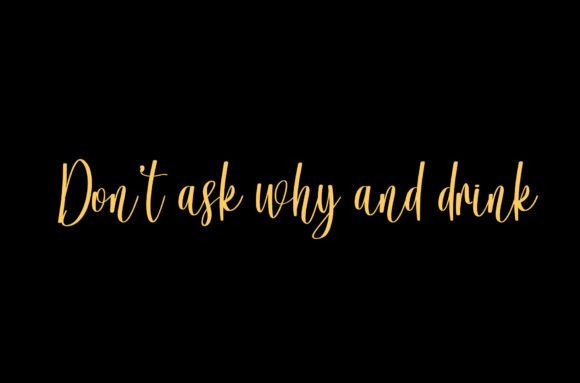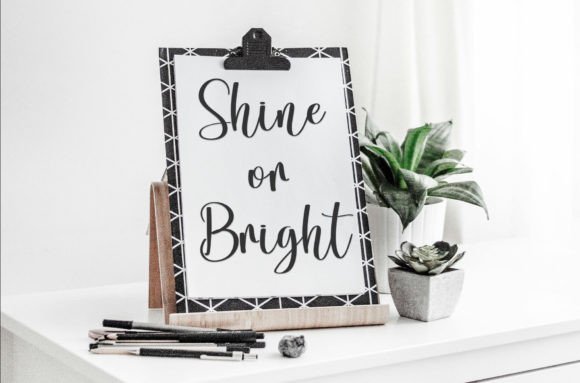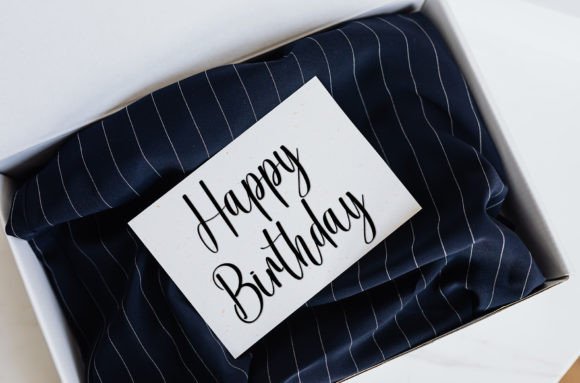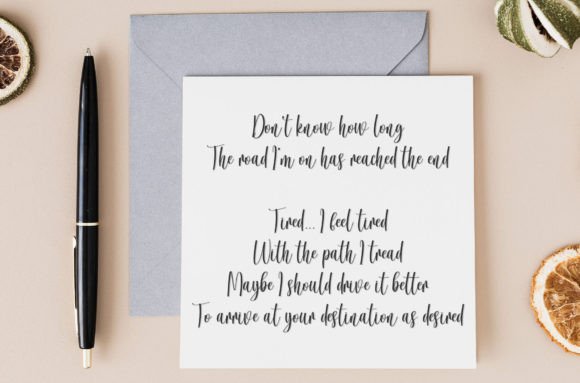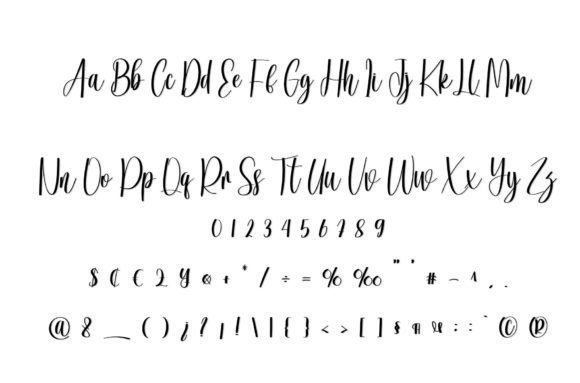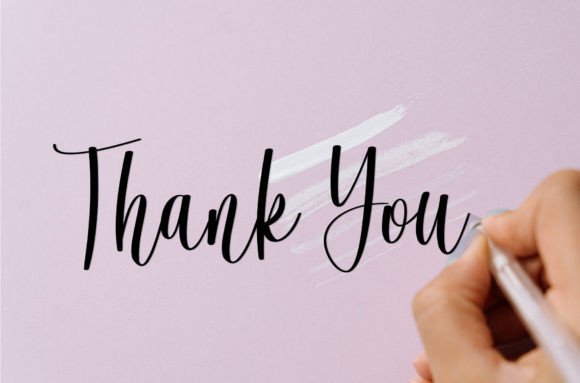
The Perfect Touch of Whimsy: Charming Font
As a designer, have you ever found yourself stuck in a creative rut, searching for that elusive spark to elevate your work from ordinary to extraordinary? It’s in these moments that the right font can be the game-changer you need. For me, it was the discovery of the Charming Font – a delicate and elegant handwritten font that instantly captured my heart.
With its distinct and well-balanced letters, the Charming Font is a masterpiece that can add a touch of whimsy to any design. Its incredibly versatile style makes it perfect for a wide range of applications, from beautiful wedding invitations to eye-catching advertisements.
For designers, the Charming Font is a valuable addition to any toolkit, offering a unique and sophisticated look that’s sure to impress. Whether you’re a seasoned pro or just starting out, this charming font is sure to become your go-to choice for creating spectacular designs that leave a lasting impression.
Charming Font Key Features
- Unique Characteristics: Elegant, cursive script with a touch of sophistication and whimsy, suitable for invitations, weddings, and special occasions
Charming Font Review
Overall, I’d say the Charming Font is a solid choice for projects that need a touch of elegance and sophistication. ✨ It’s a beautifully designed font that’s sure to impress. The flowing curves and delicate details make it perfect for invitations, greeting cards, and other personal projects.
One of the things I love about the Charming Font is its versatility. ✨ It’s available in multiple weights and styles, making it easy to find the perfect fit for your project. From the lightest whispers to the boldest statements, this font has got you covered.
Here are some of the font’s key features:
- Multiple weights and styles to choose from
- Beautifully designed with flowing curves and delicate details
- Perfect for invitations, greeting cards, and other personal projects
While the Charming Font is a great choice for many projects, it’s not without its limitations. ⚠️ For one, it’s not as legible at smaller font sizes. If you need to use the font in a small size, you may find it difficult to read. Additionally, the font’s delicate details can sometimes make it difficult to pair with other fonts.
Here are some potential drawbacks to consider:
- Not as legible at smaller font sizes
- Delicate details can be difficult to pair with other fonts
Overall, I’d say the Charming Font is a great choice for projects that need a touch of elegance and sophistication. While it’s not perfect, its beautiful design and versatility make it a solid choice for many designers.
For the most out of Charming Font, use it for:
– Baby announcements and nursery decor
– Gift tags and packaging
– Social media graphics and advertising
Remember to use Charming Font in moderation to avoid overwhelming your design. Pair it with simple, clean graphics to create a visually appealing effect.
Alternatives to Charming Font
Caveat Font
Caveat Font is a modern script font designed for titles, headings, and short paragraphs. It’s ideal for adding a touch of elegance and sophistication to your designs. Compared to Charming Font, Caveat has a more refined and subtle feel, making it perfect for high-end branding and luxury products.
Great Vibes Font is a beautiful script font that’s perfect for creating a warm and inviting atmosphere. It’s great for use in advertising, social media, and editorial content. Unlike Charming Font, Great Vibes has a more relaxed and casual feel, making it suitable for a wide range of creative projects.